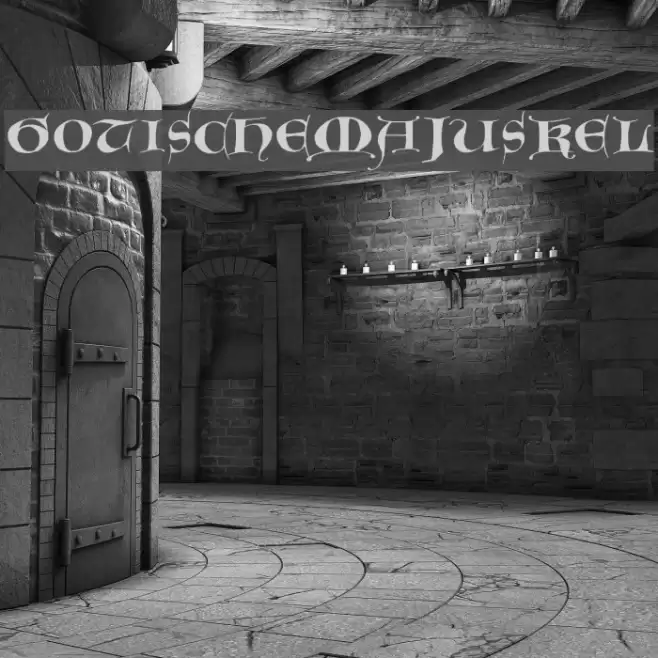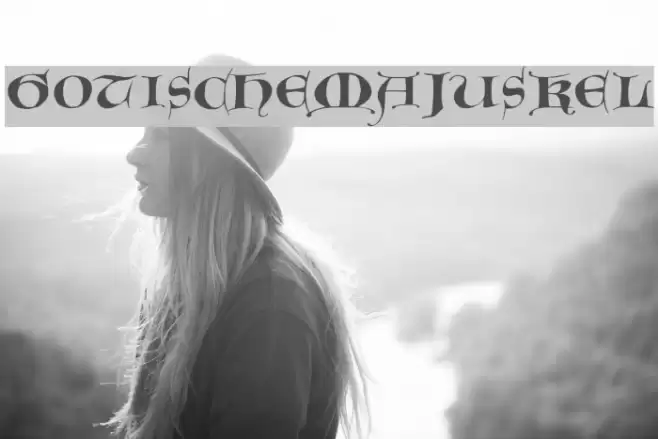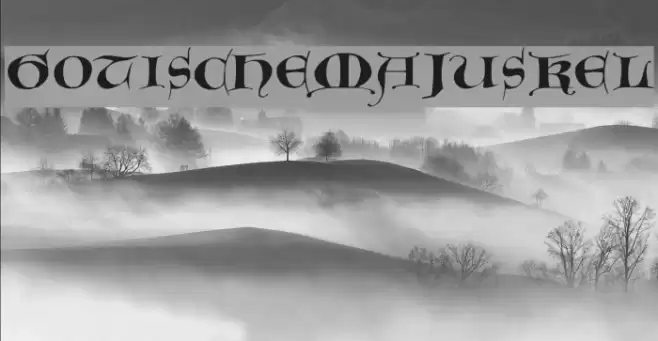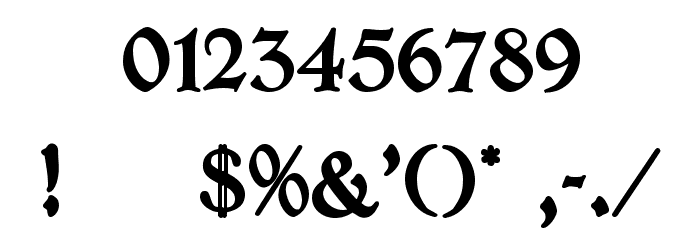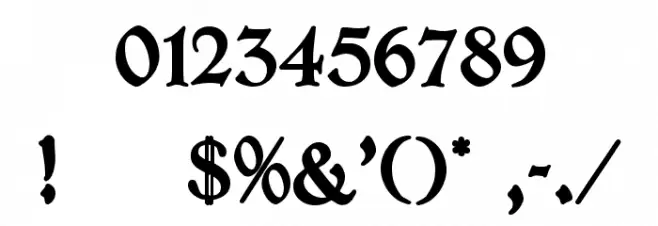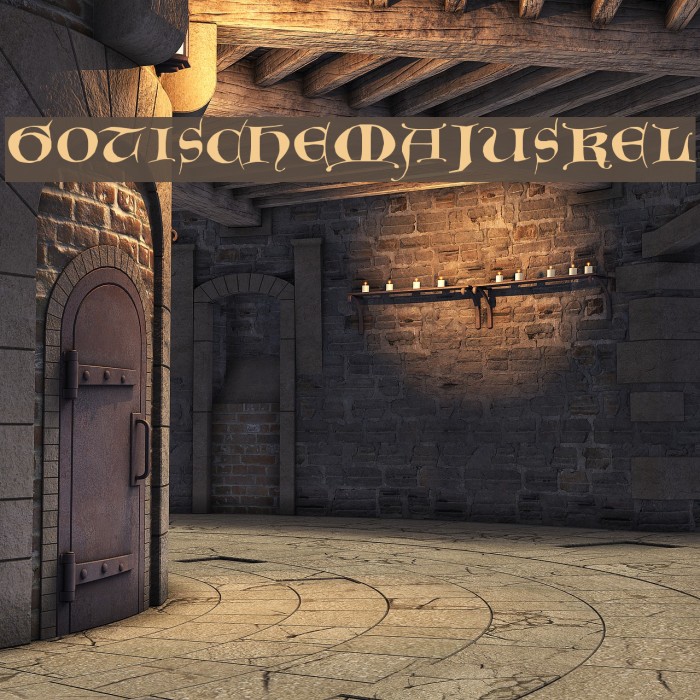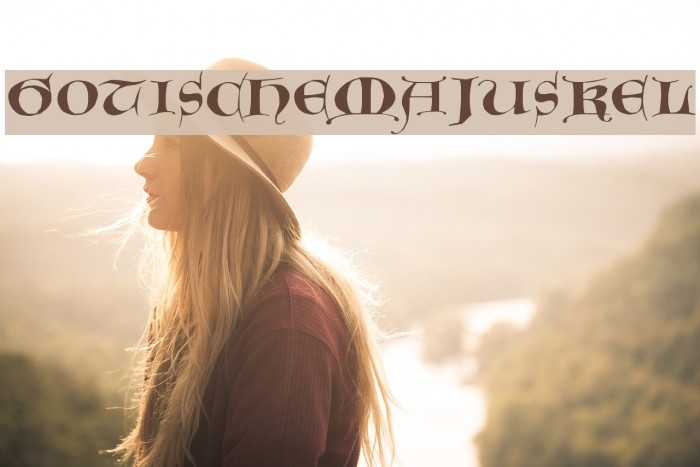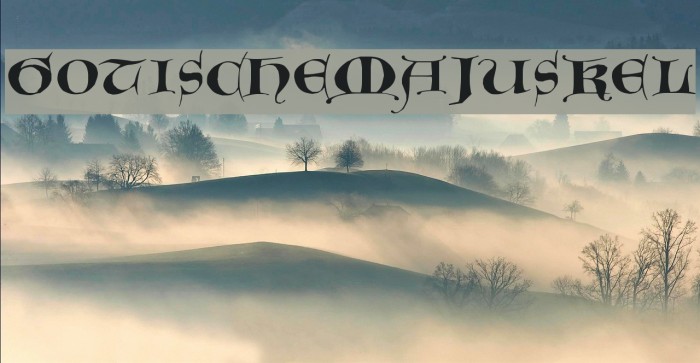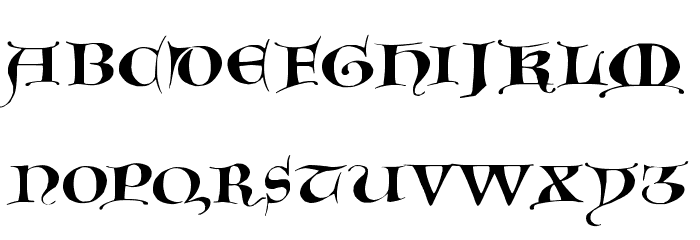
GotischeMajuskel Font
GotischeMajuskel Description
This font exudes a classic and historical aura, reminiscent of traditional Gothic script. The characters are intricately designed with sharp, angular lines and elaborate curves, giving it a distinct medieval feel. The uppercase letters are particularly ornate, featuring extended serifs and decorative elements that enhance their visual impact. The lowercase letters maintain a consistent style, with a slightly more subdued design that complements the uppercase set. The numerals and special characters are crafted with the same attention to detail, ensuring a cohesive appearance across all glyphs. This font is ideal for projects that require a touch of elegance and historical authenticity.
A decorative Gothic-style font with intricate, angular designs and ornate details from Gothic fonts.
- Proposed Projects: Ideal for historical documents, medieval-themed designs, book covers, and invitations.
- Overall Style: Vintage